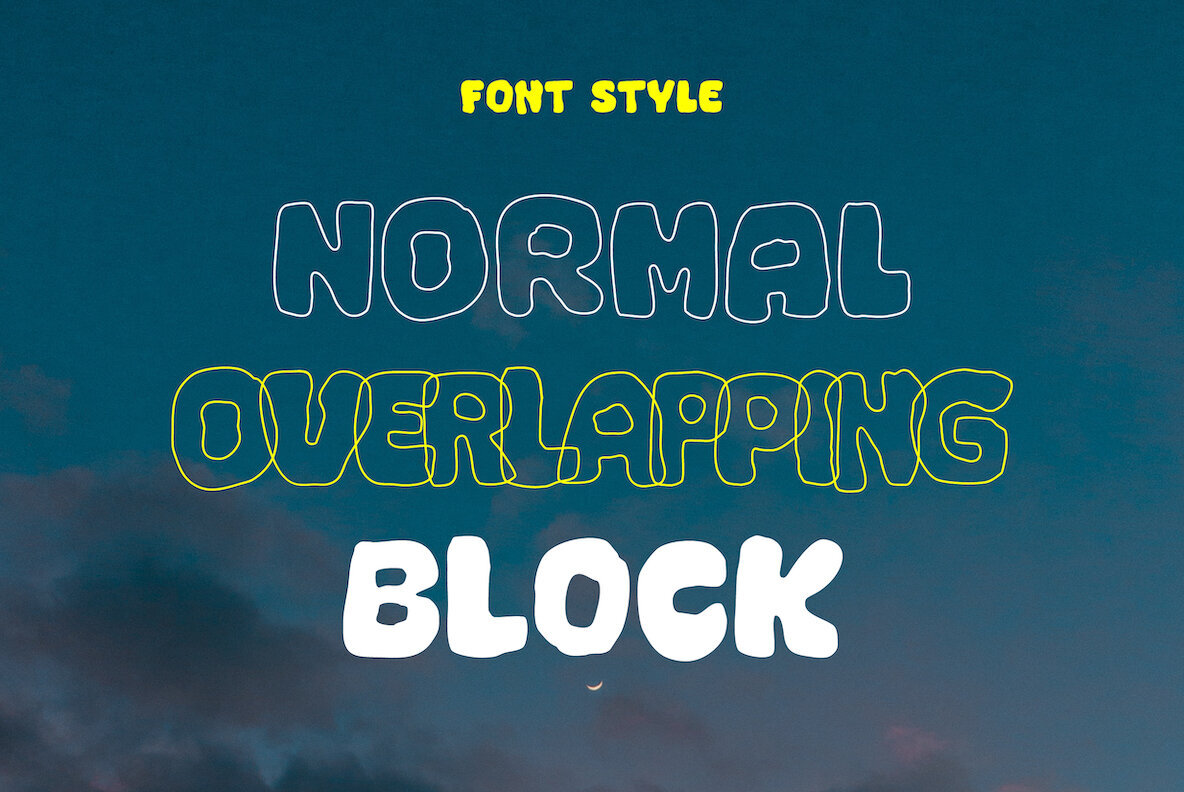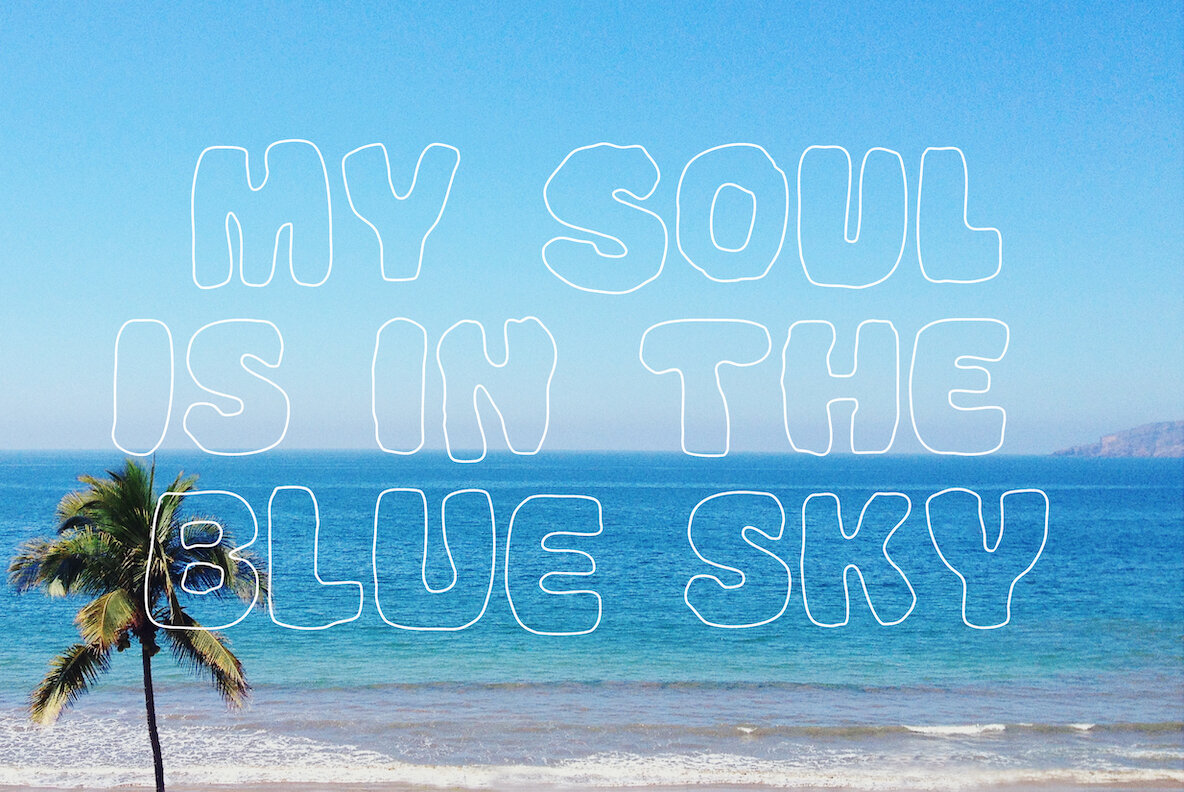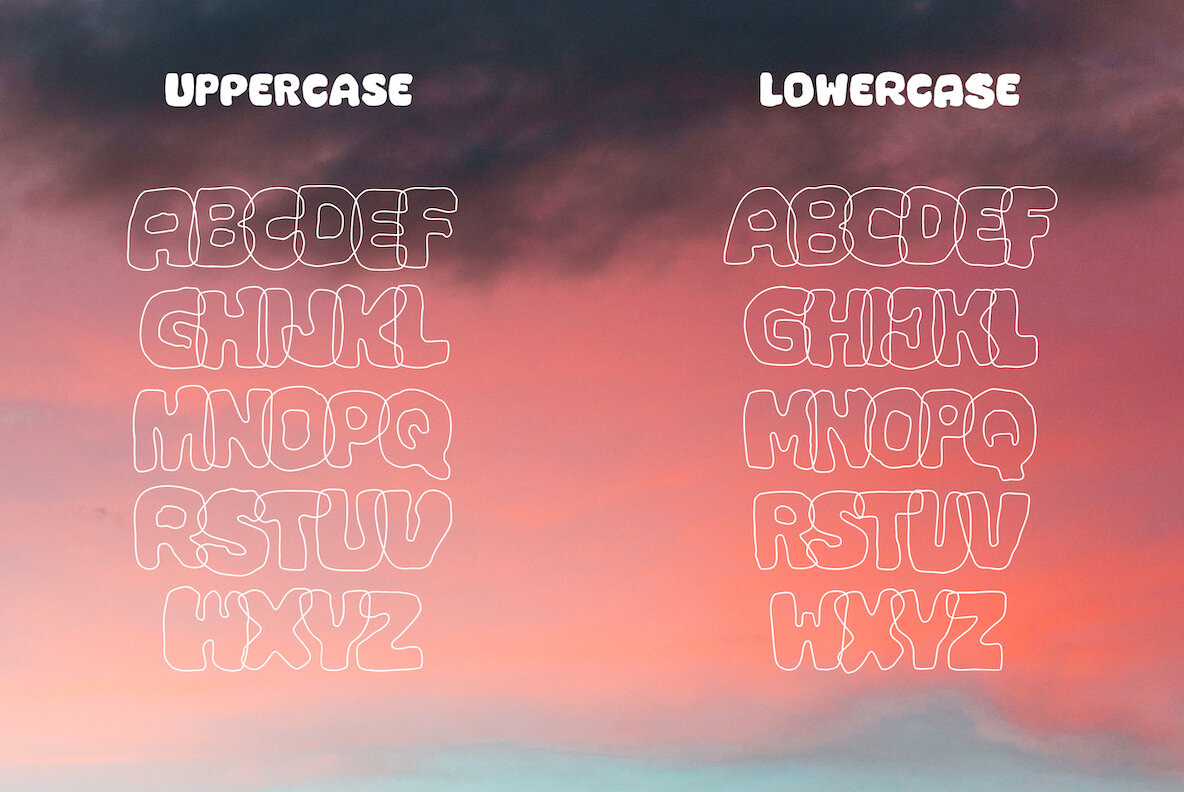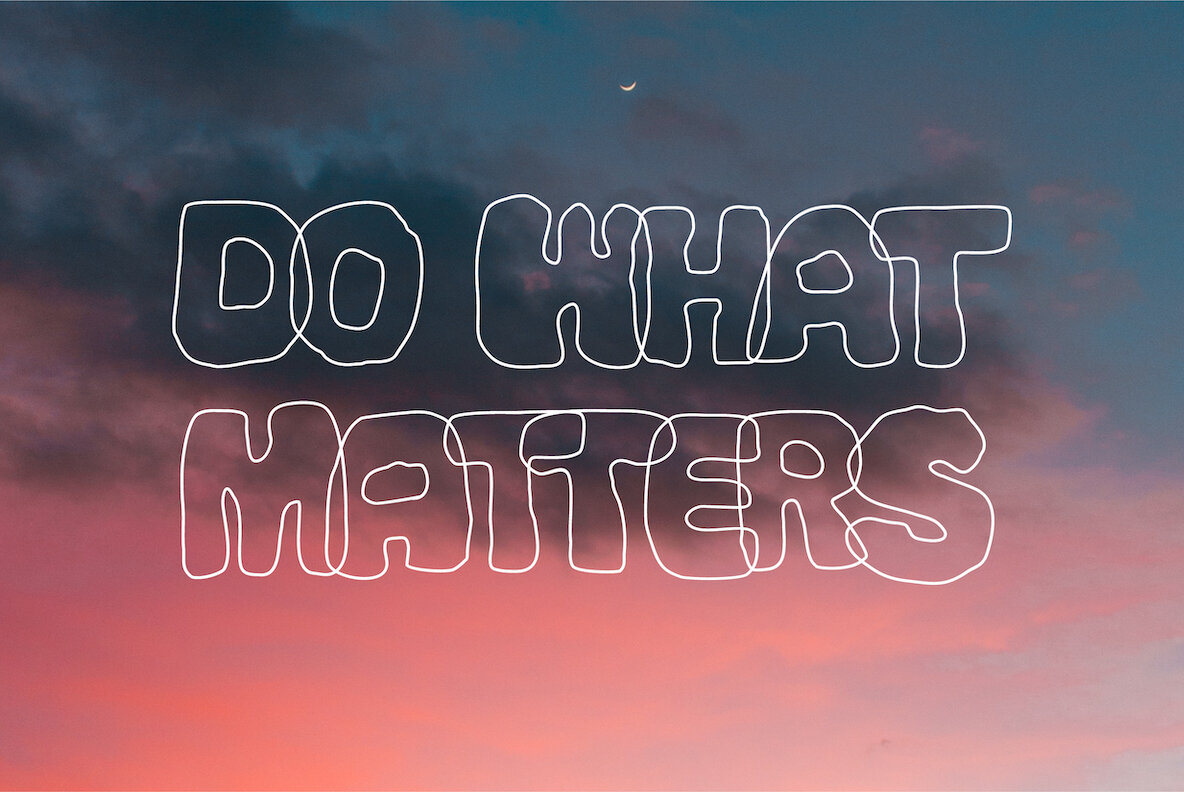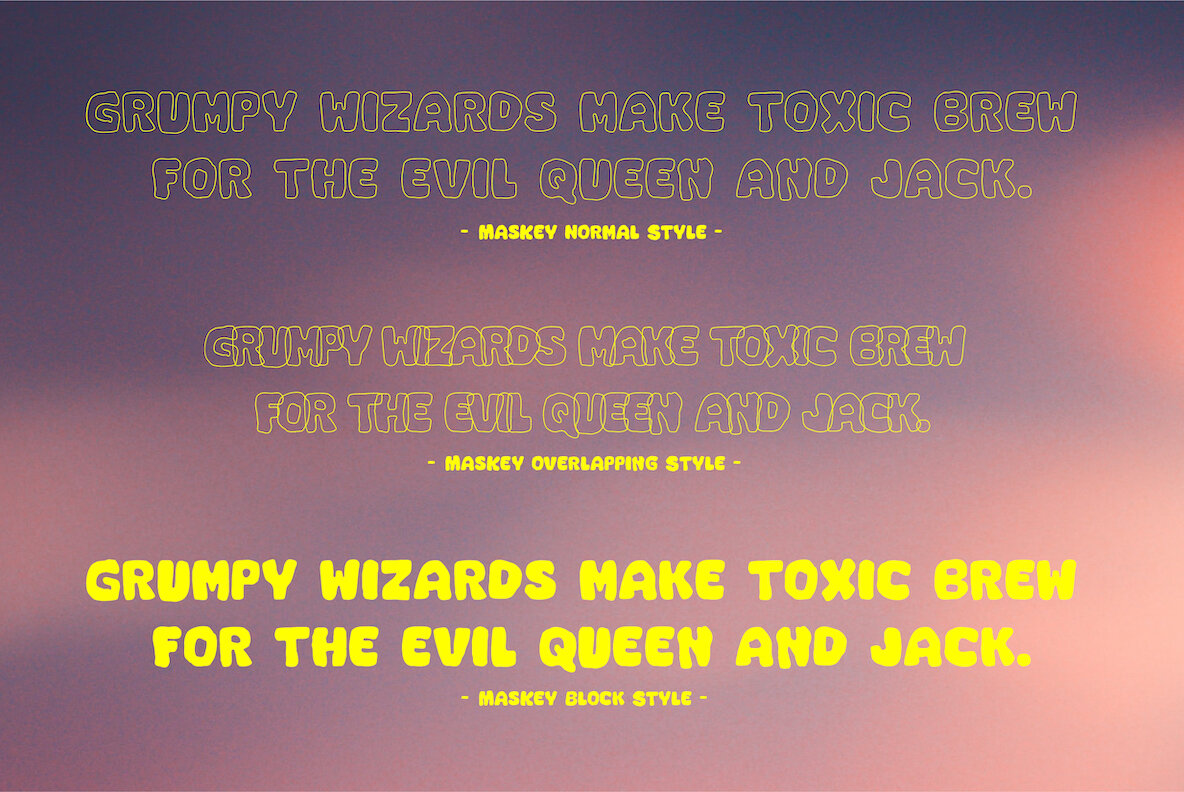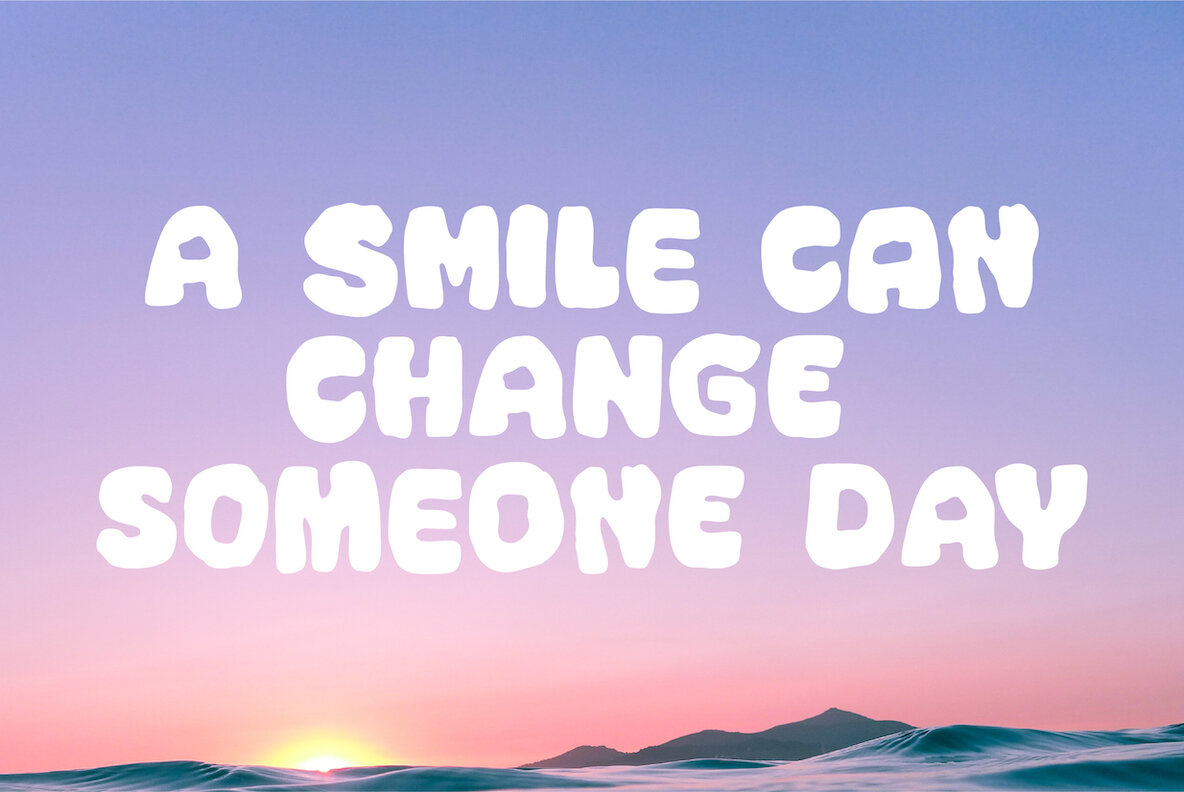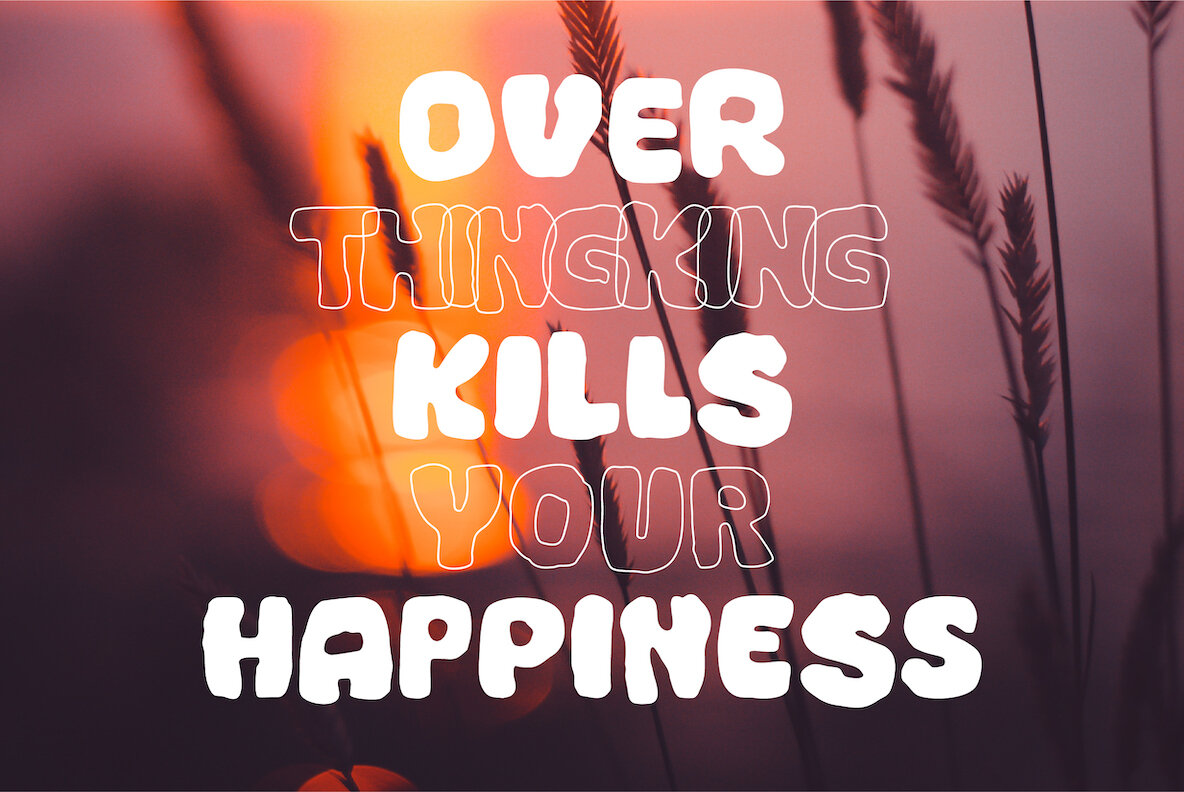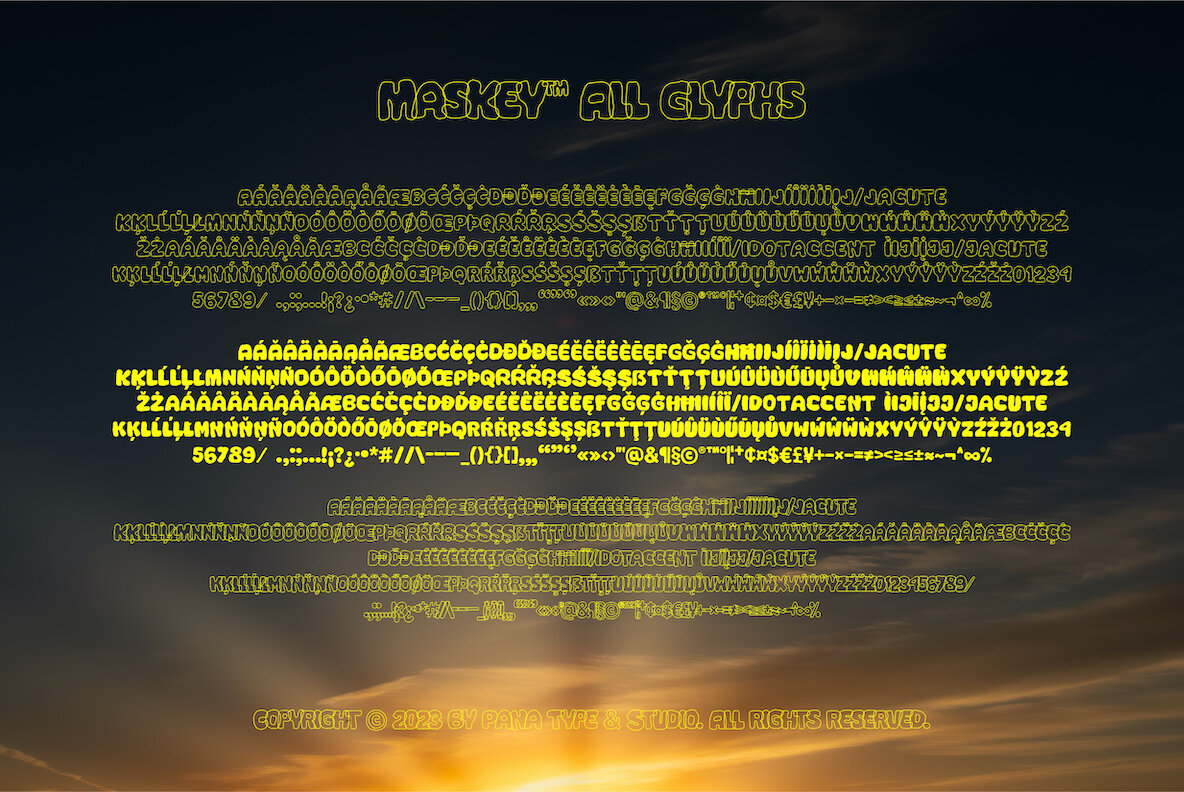
MASKEY Font
Introducing Maskey, a charming typeface that brings a touch of personality to your designs. Imagine the feeling of stumbling upon an old handwritten letter, filled with raw emotions and a story just waiting to be told. That's the essence of Maskey, a font that captures the beauty of freehand writing with its rough, yet modern vintage appeal.
Maskey comes in three family styles: Normal, Overlapping, and Block. Each variation has been thoughtfully crafted to suit your unique design needs. Whether you're working on a retro-inspired branding project, a gritty poster, or a whimsical greeting card, Maskey's freestyle vibe will make your work stand out.